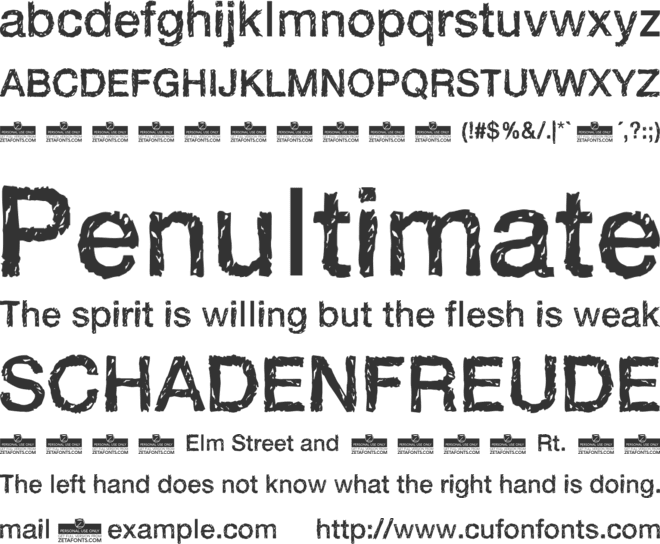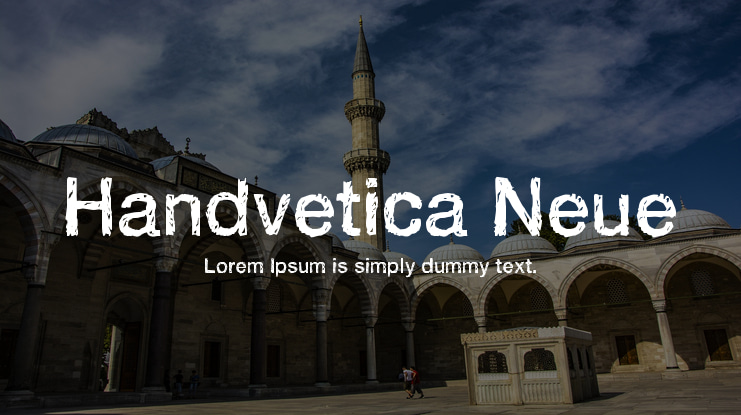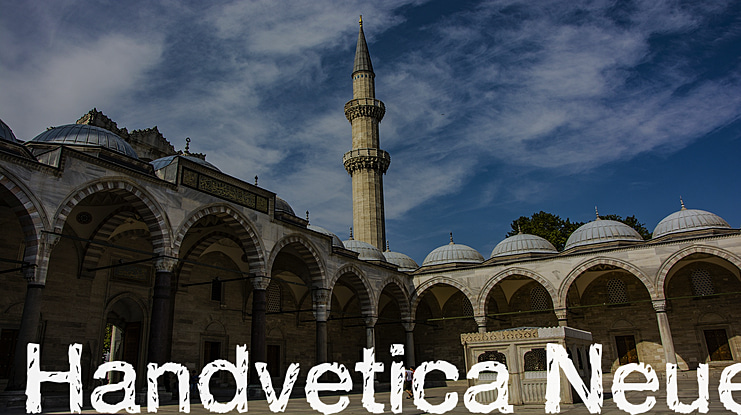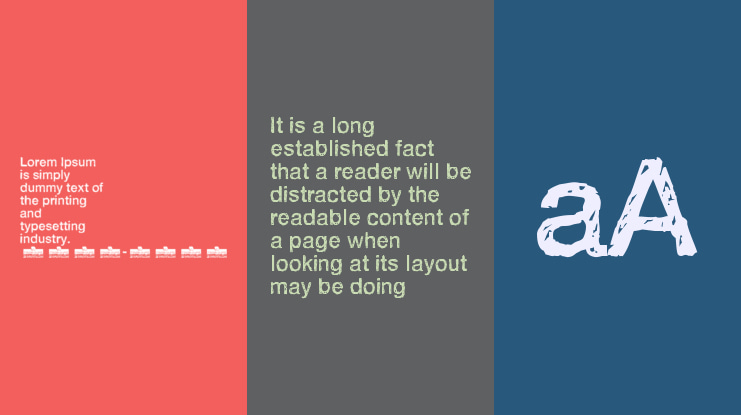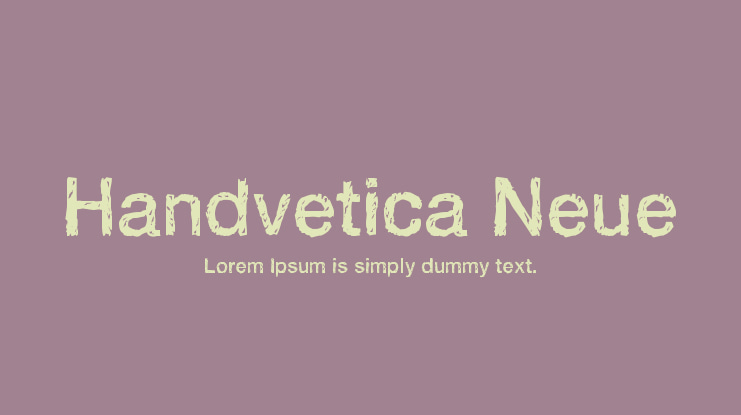
Cosimo Lorenzo Pancini
HANDVETICA NEUE is a hand drawn sans serif typeface designed by Cosimo Lorenzo Pancini and inspired by the look of classic modernist typefaces. It covers over 40 languages that use the Latin alphabet, with full range of accents and diacritics, and comes in two weights (light and regular) and a condensed version (previously released as Handvetica).